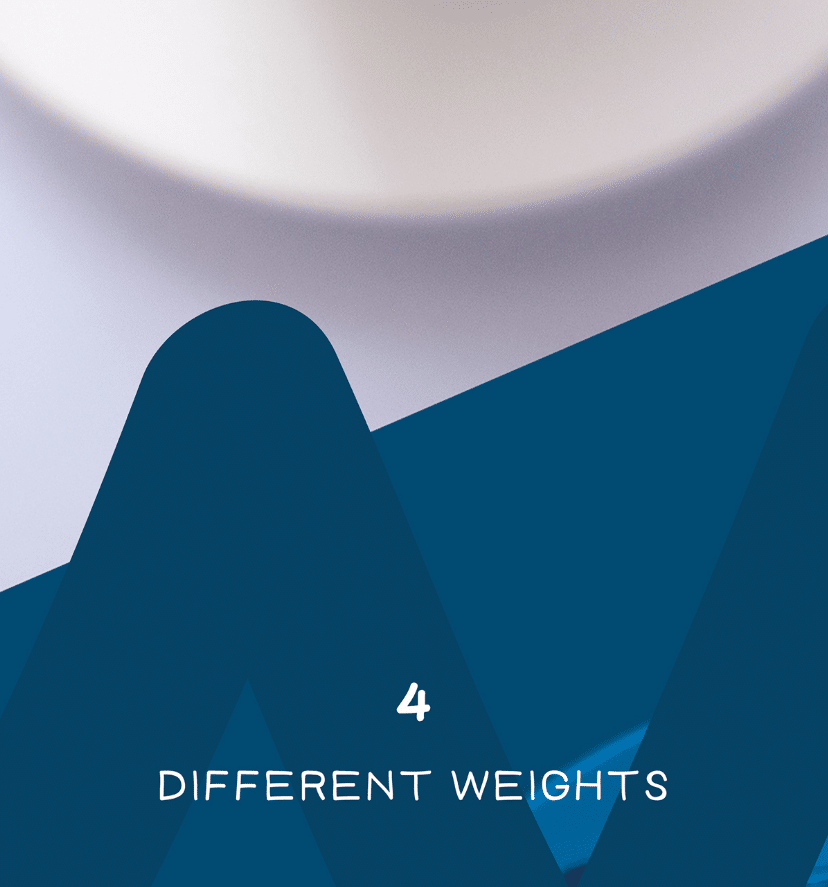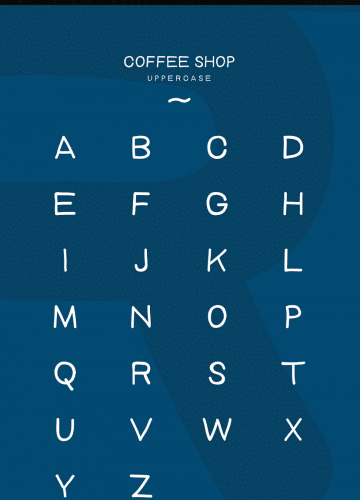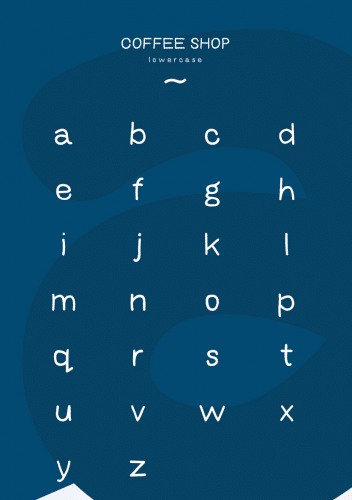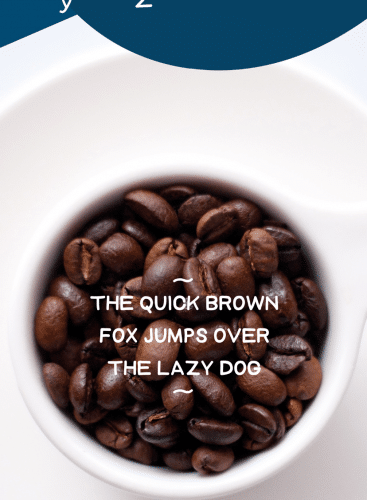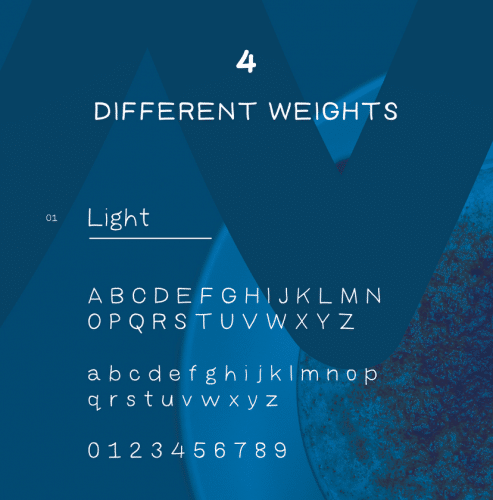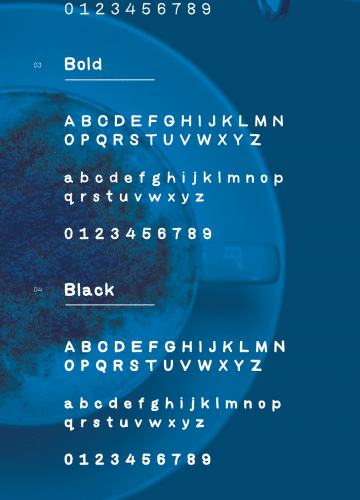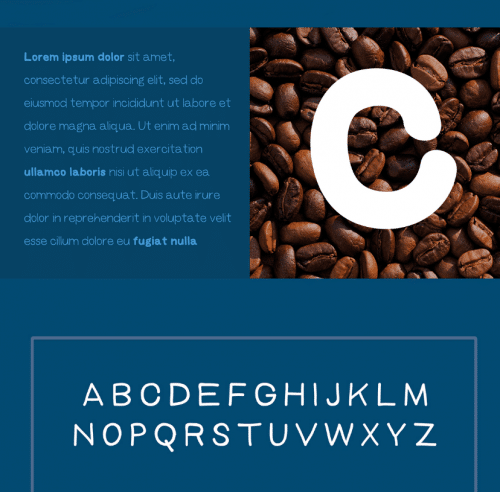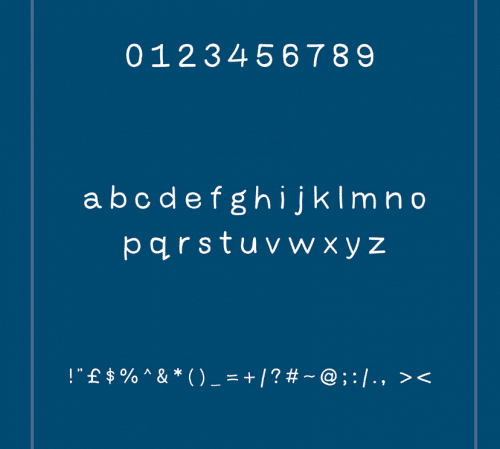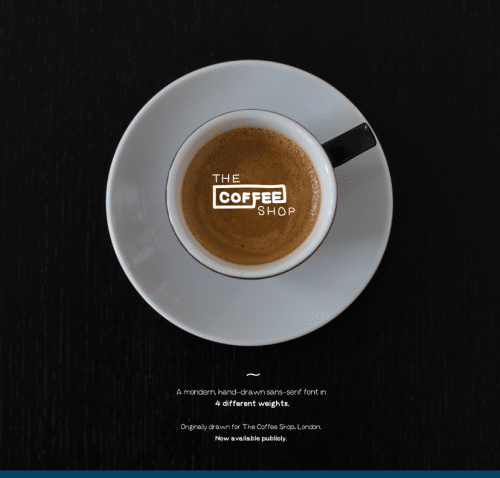
Introduce A mondem. hand-drawn sans-serif font in 4 different weights. Coffee Shop font designed and shared by Dale Peart. Coffee Shop was a font originally designed for The Coffee Shop, London. Now the font is available publicly.
- Designer: Dale Peart